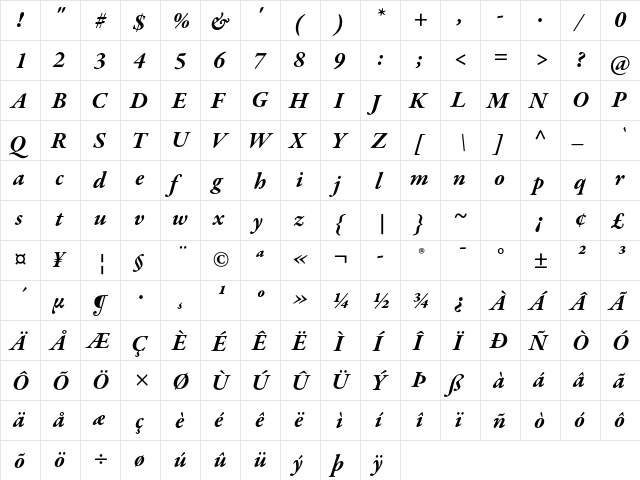
Garamond Premier Pro Bold Italic Font Preview
| Designer | Robert Slimbach |
Design Context for Garamond Premier Pro Typeface
Garamond Premier Pro takes a measured approach to typography — its balanced proportions and neutral character make it a reliable workhorse for both digital and print work. Its italic angle brings a sense of urgency and motion to the letterforms. The heavy weight commands attention and anchors typographic hierarchies.
Pro Tip: Use Garamond Premier Pro for emphasis, pull quotes, and subheadings where its slanted energy can add rhythm to the layout.